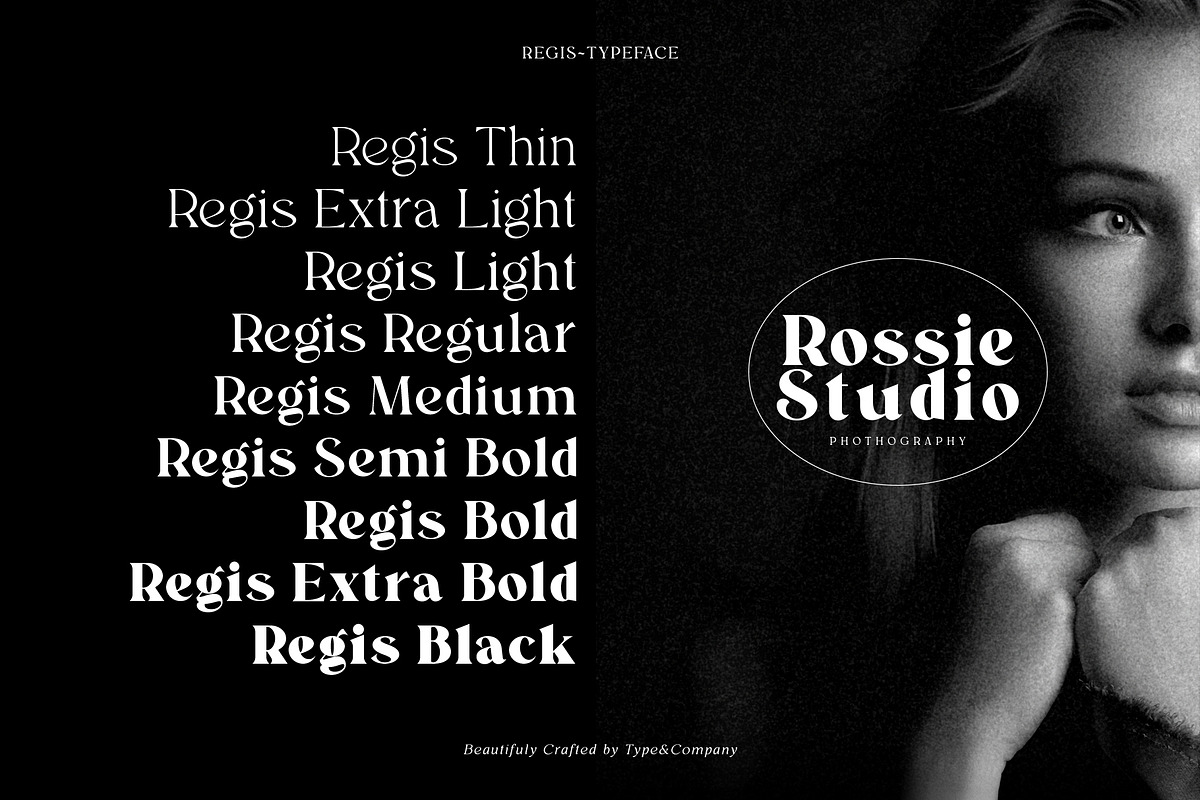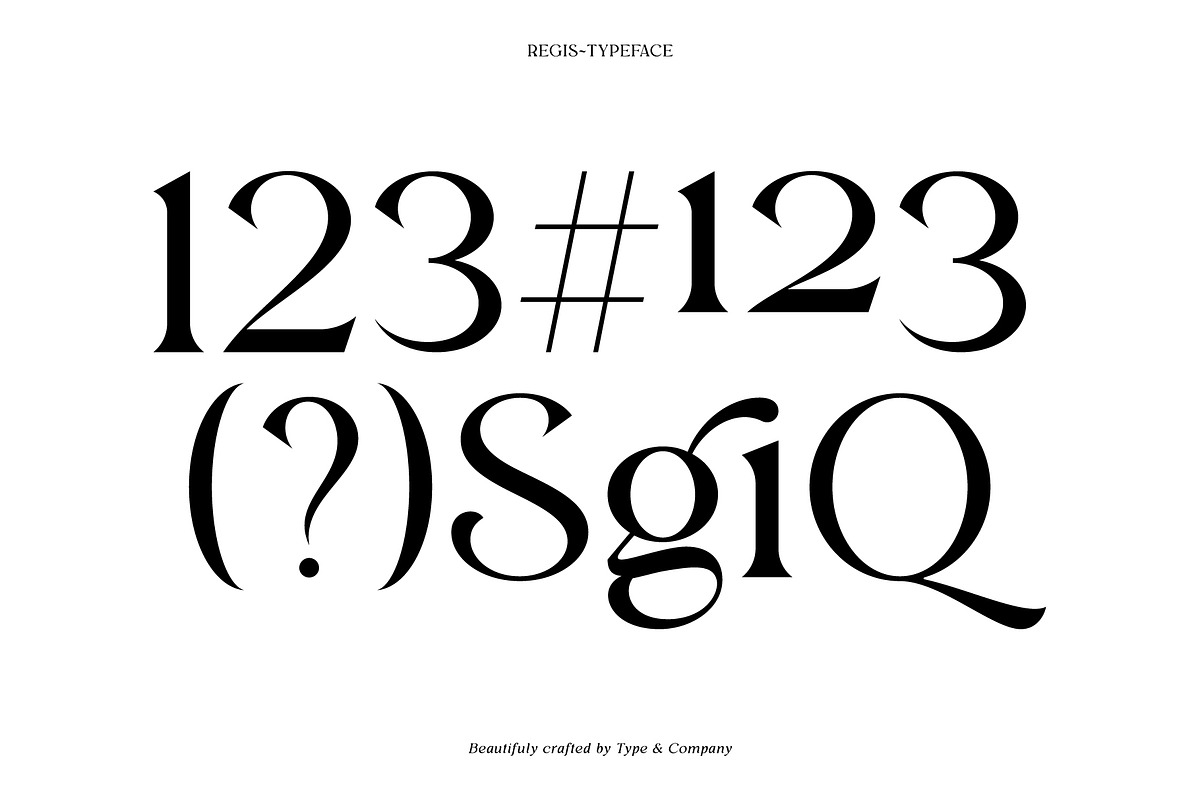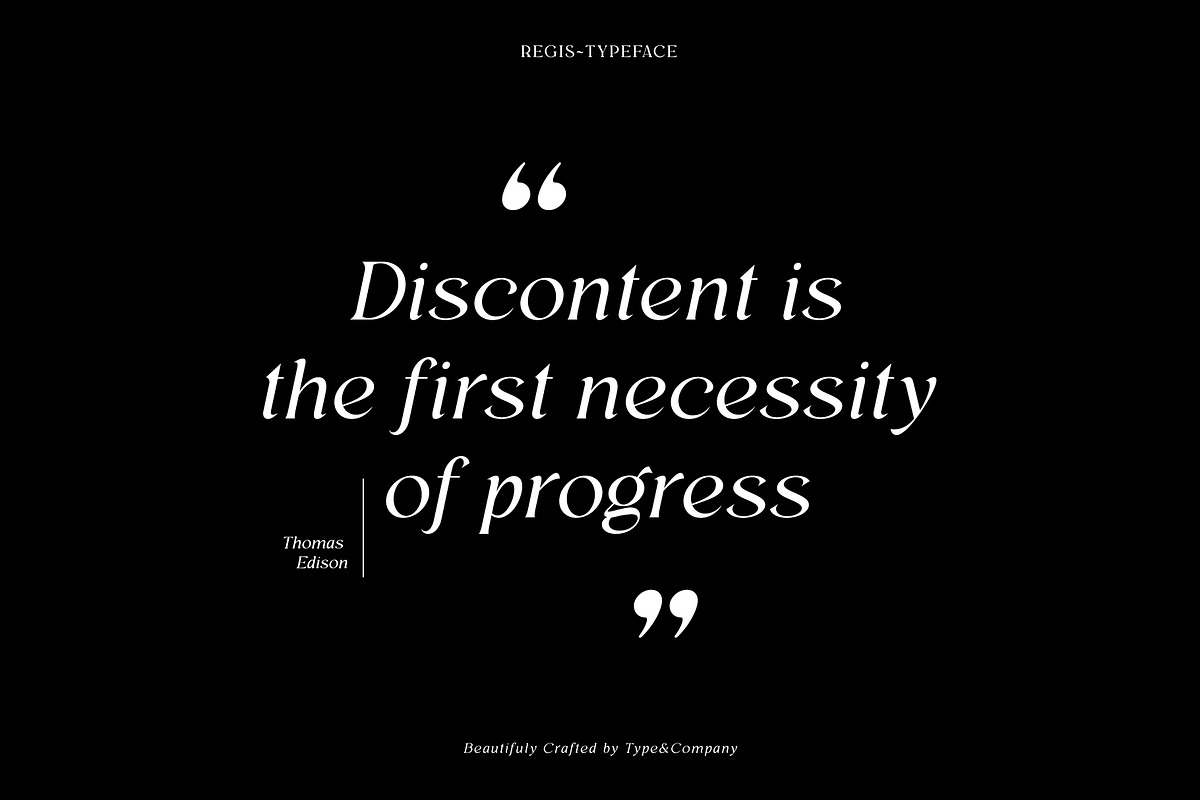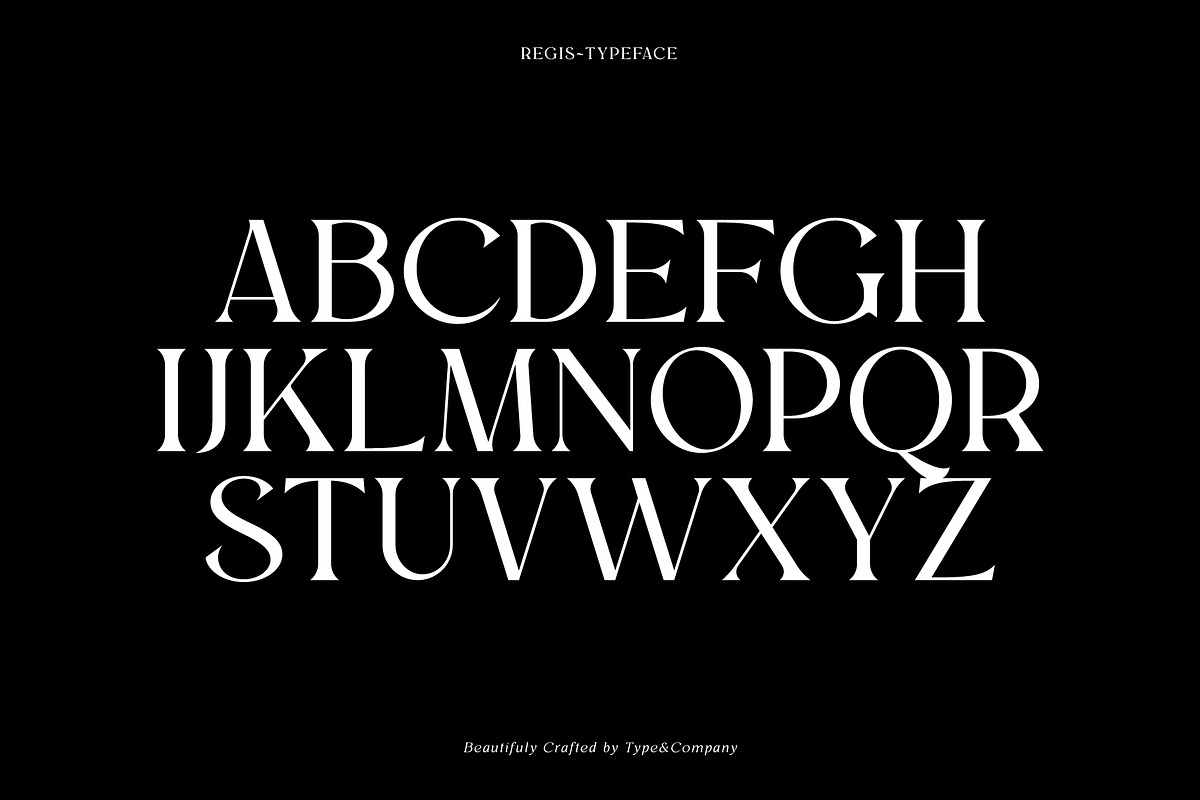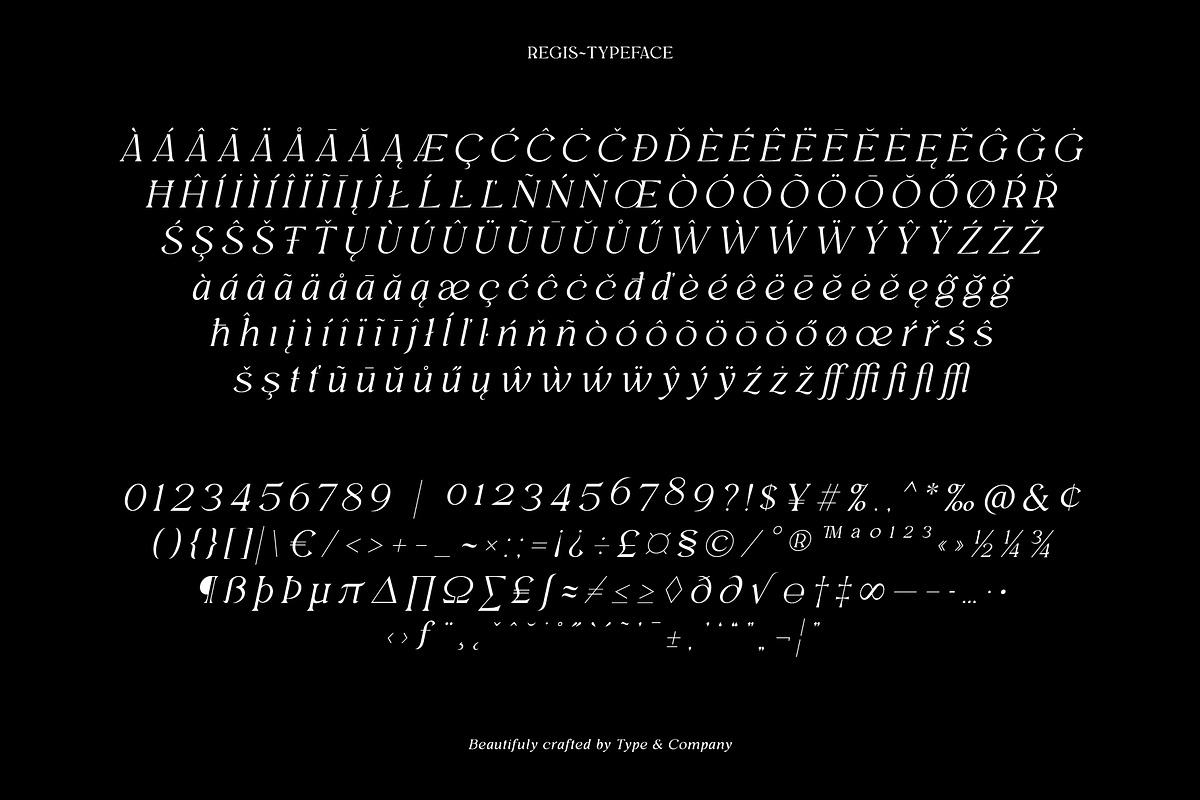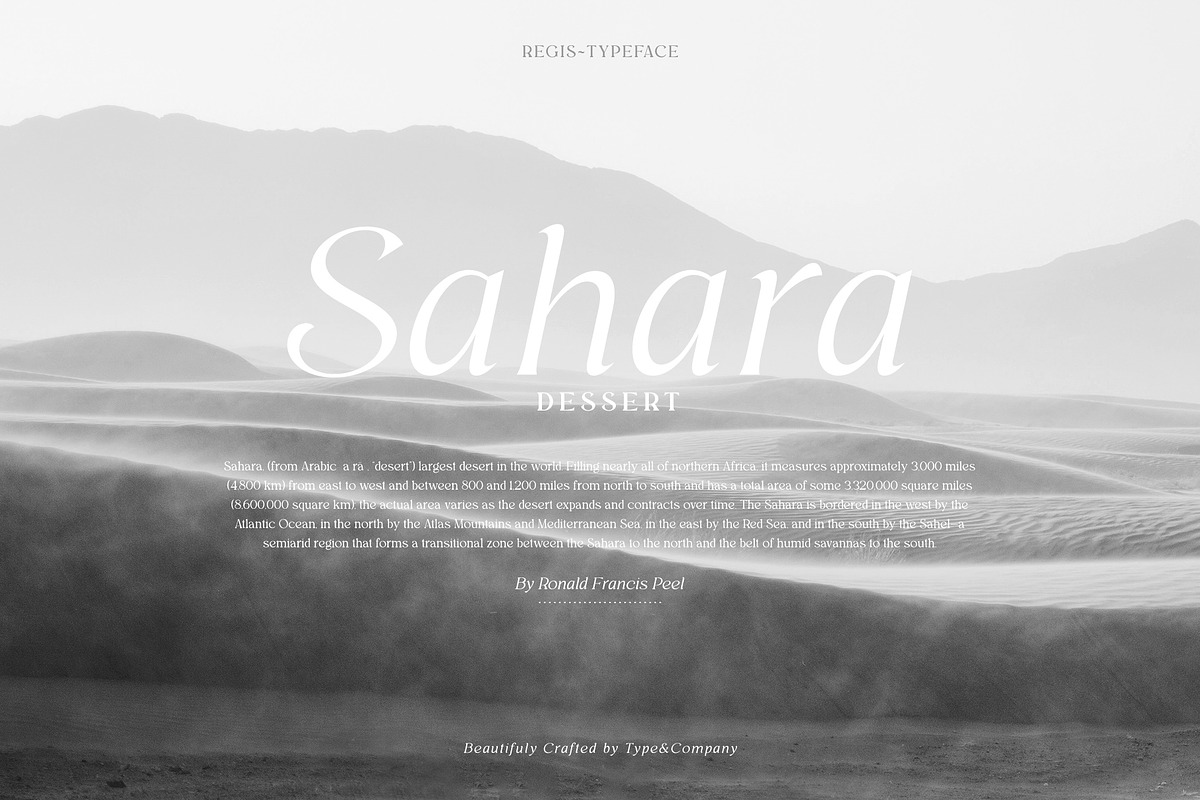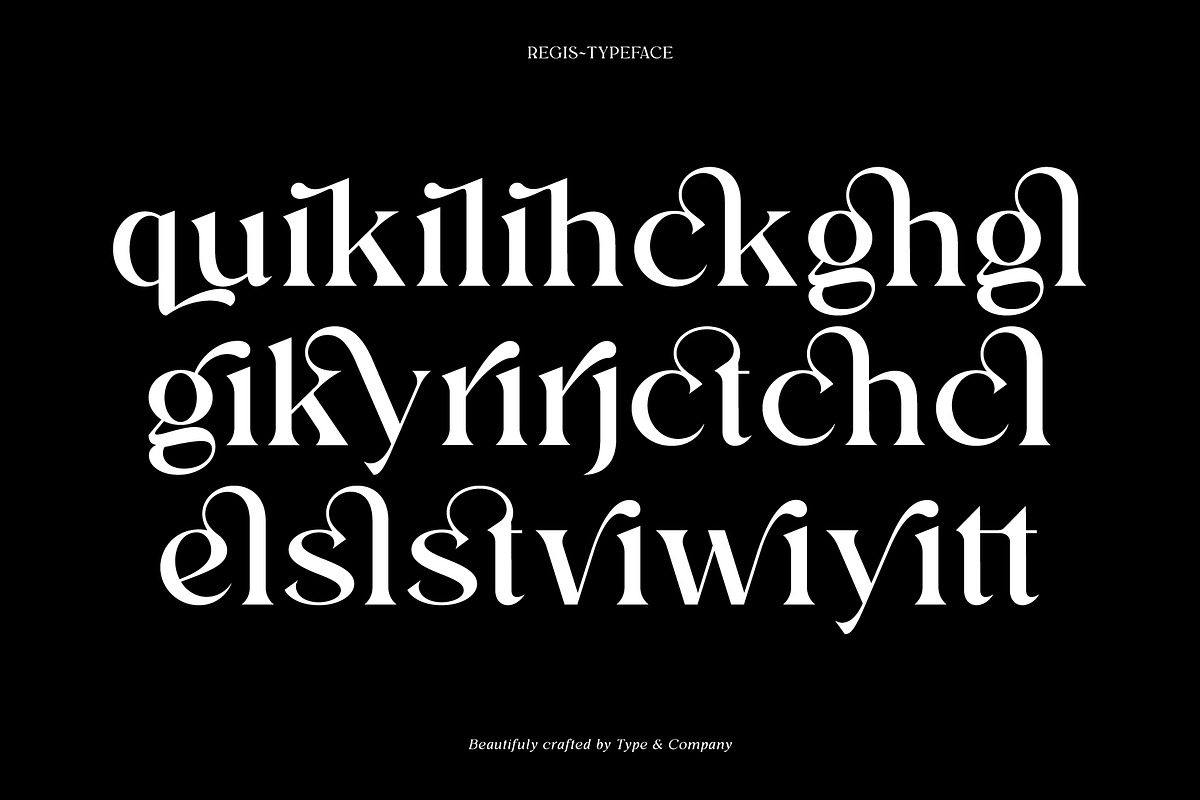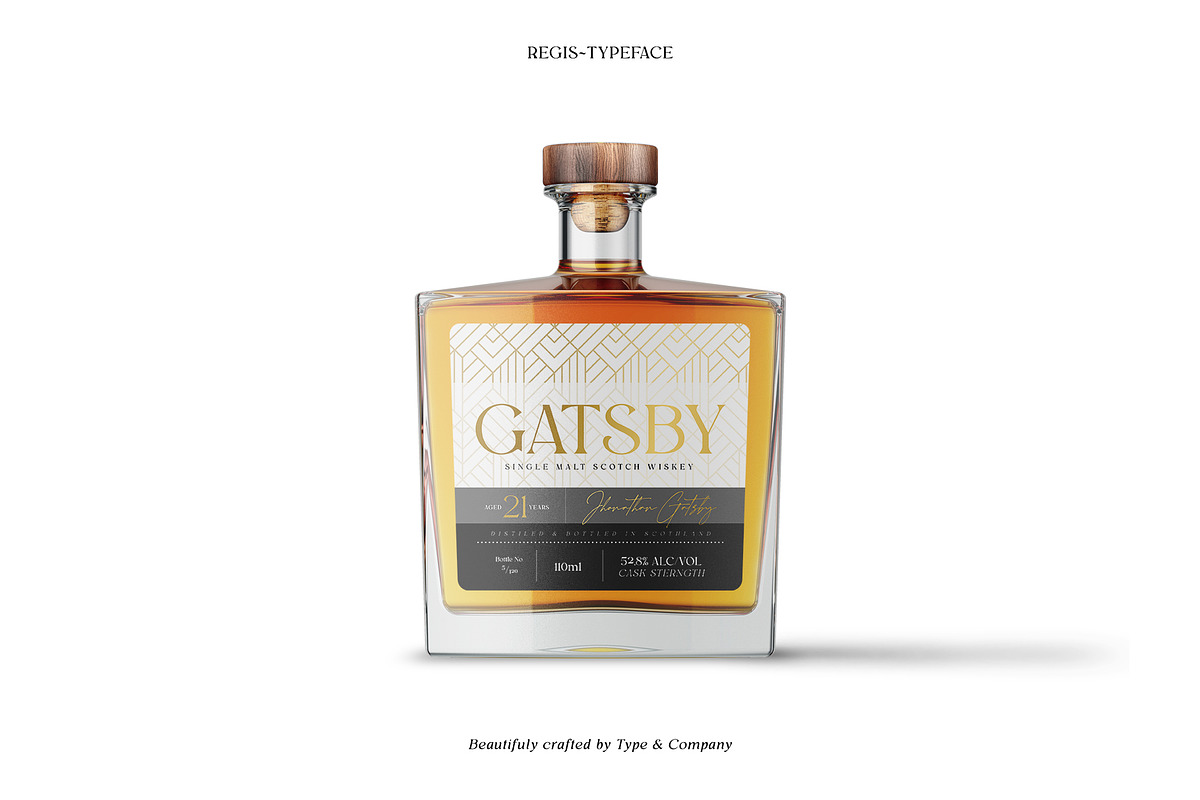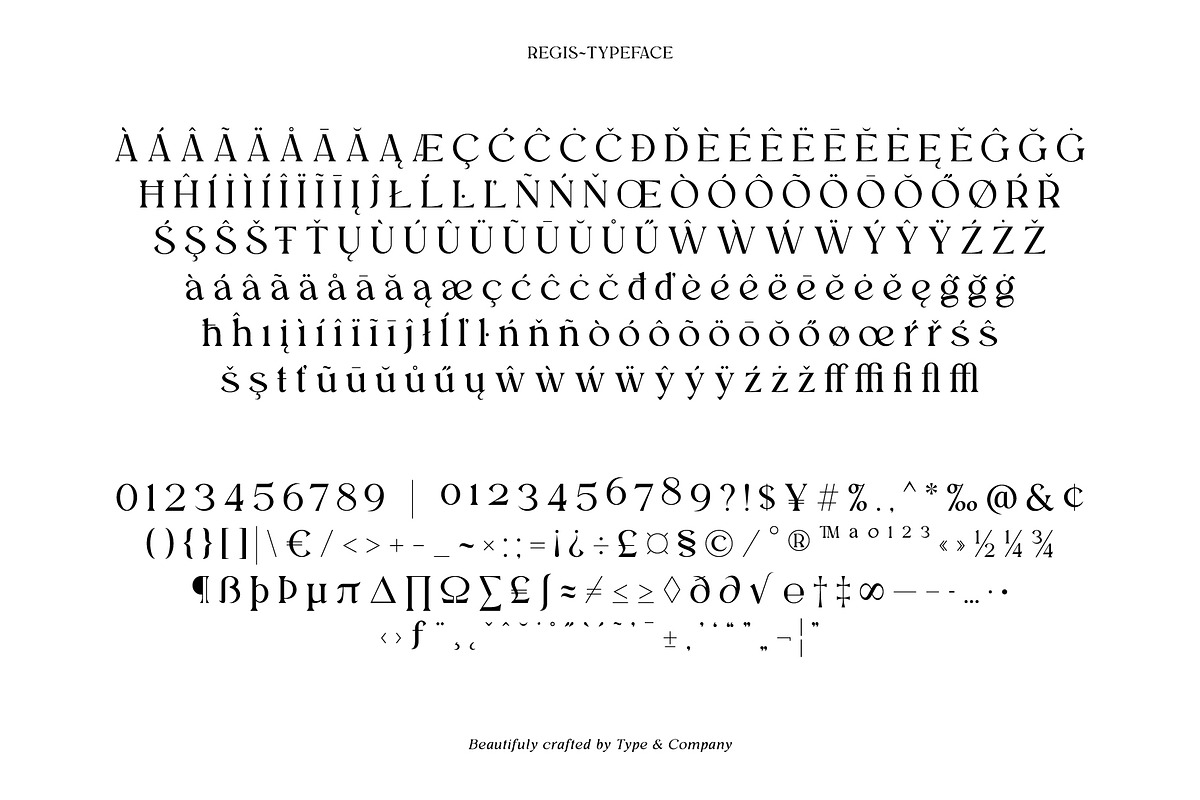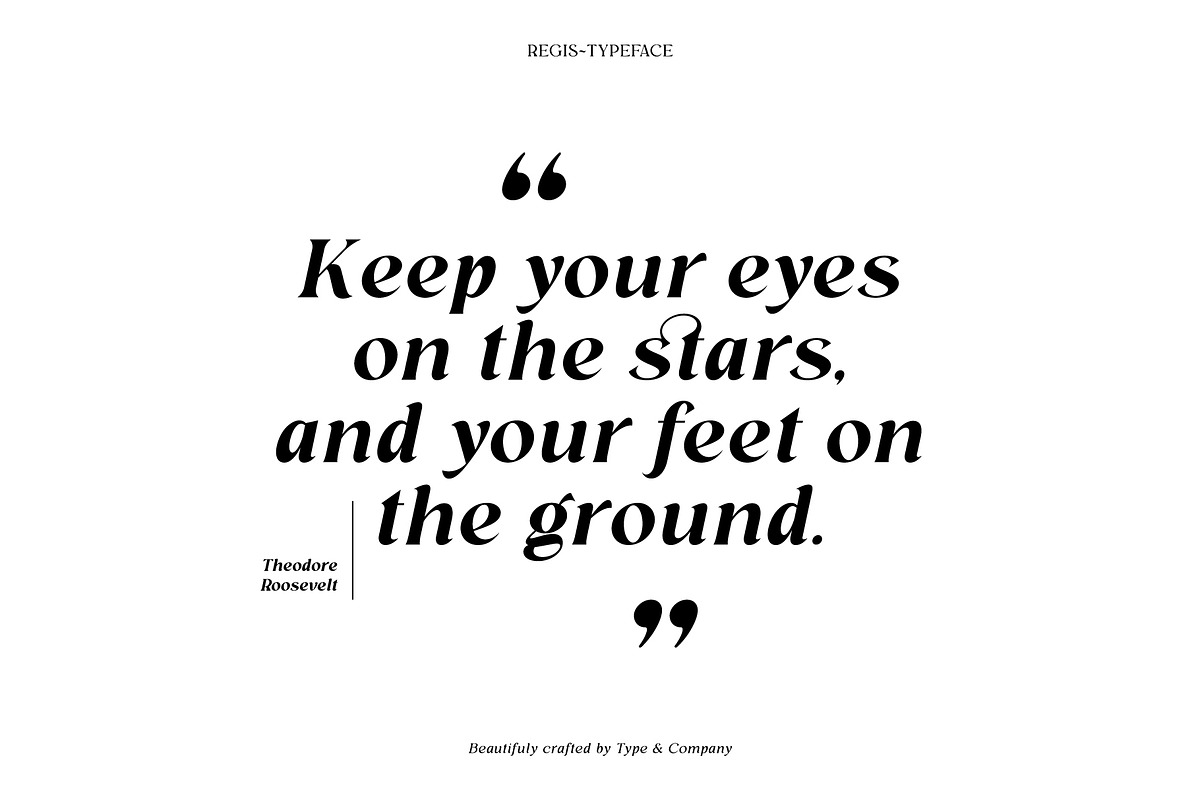
Regis | Elegant Serif Font Family
Regis is a brand new serif family with modernity and elegance. It has a classy style with ligatures, alternates, and supports multilingual languages. Perfect for all kinds of a design projects.
- Full upper & lower case, alternates & ligatures, numbers, punctuation, and multilingual support.
- The full italic style also included.